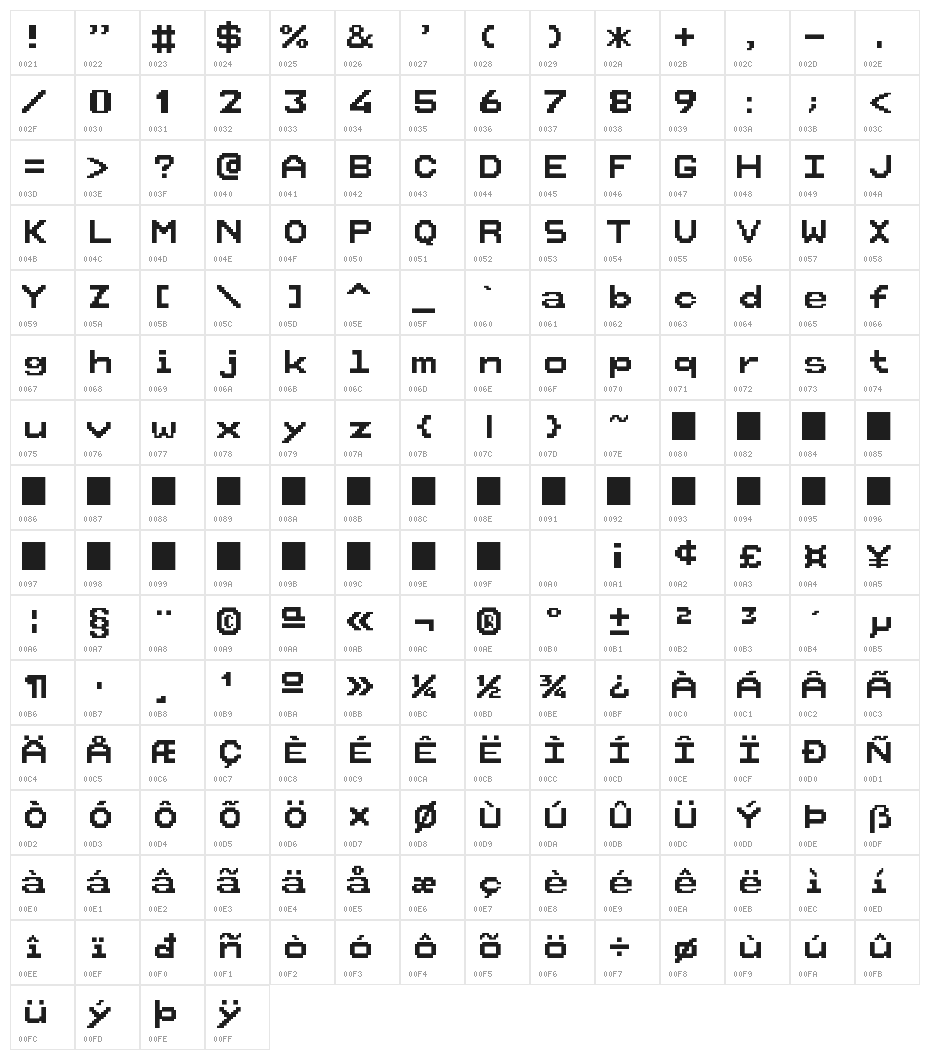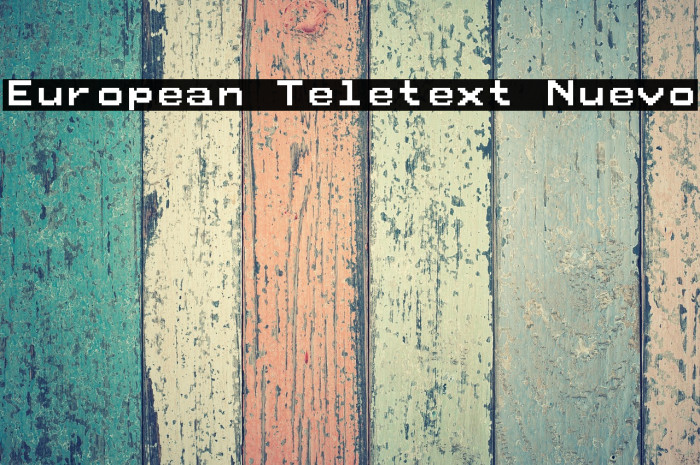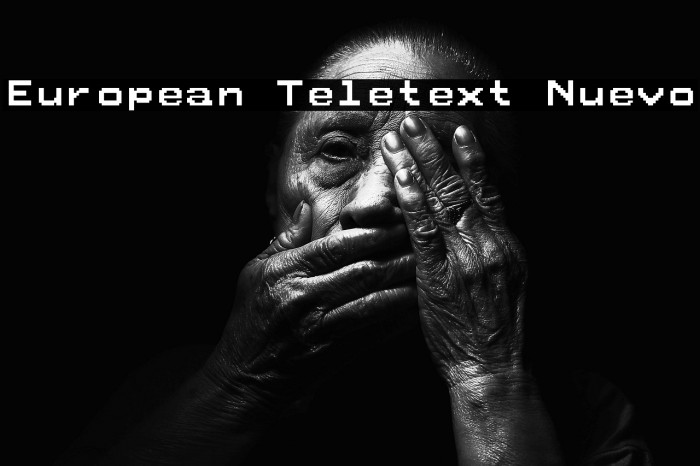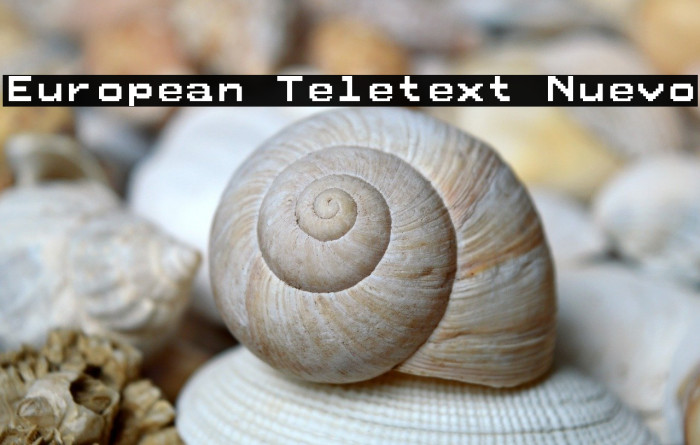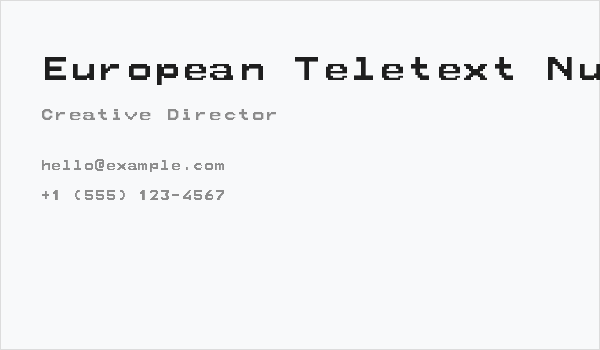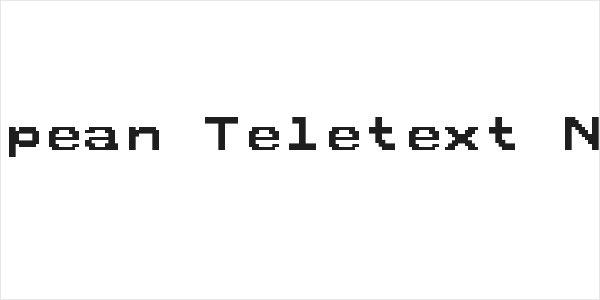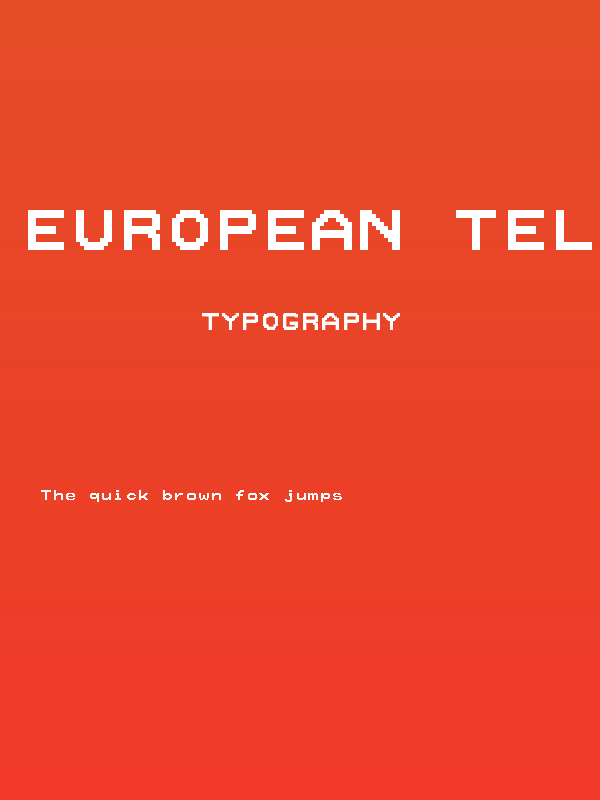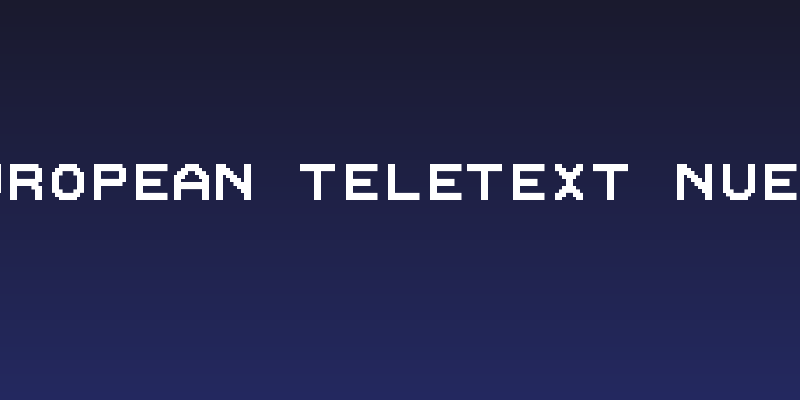
European Teletext Nuevo Font
European Teletext Nuevo Description
This font features a pixelated, monospaced design reminiscent of early digital displays and teletext systems. Each character is constructed with a blocky, grid-like appearance, giving it a retro, digital aesthetic. The uppercase and lowercase letters maintain a consistent height, contributing to a uniform look across the text. Numbers and special characters follow the same pixelated style, ensuring cohesion throughout. The font's simplicity and clarity make it highly legible, even at smaller sizes, while its nostalgic feel evokes memories of vintage computing and gaming interfaces.
| Use Case | Headlines, Digital displays, Retro designs |
| Proposed Projects | Ideal for retro-themed designs, digital art, video game interfaces, and any project seeking a nostalgic, vintage computing feel. |